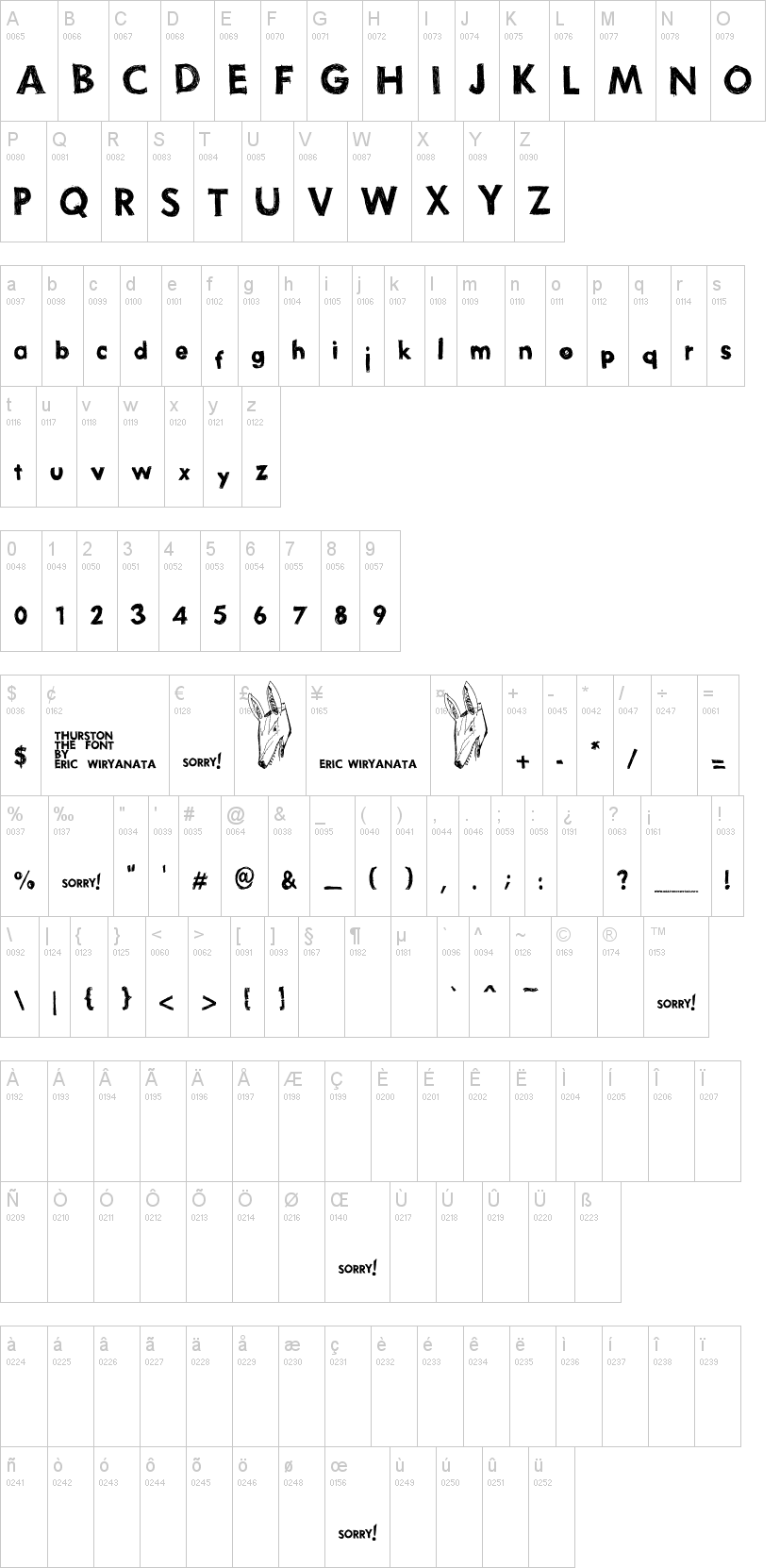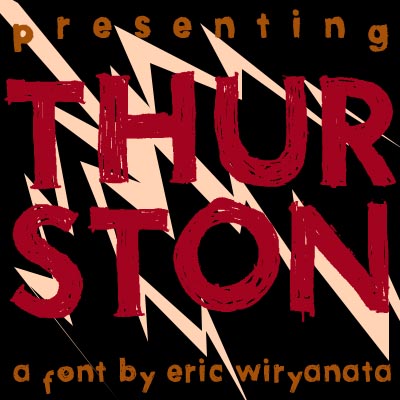
Note of the authorthe name Thurston was taken after Thurston Moore.
But the design didn't came from any of Thurston Moore related, I just thought that the name would fit the font nicely
The font was sketched using the Futura font as inspiration.
I embed some illustration in the font.